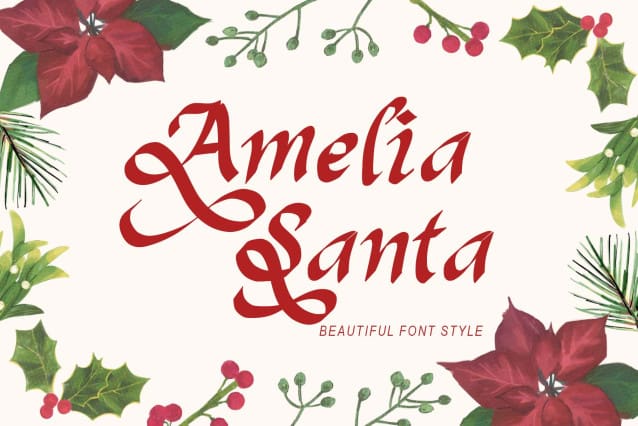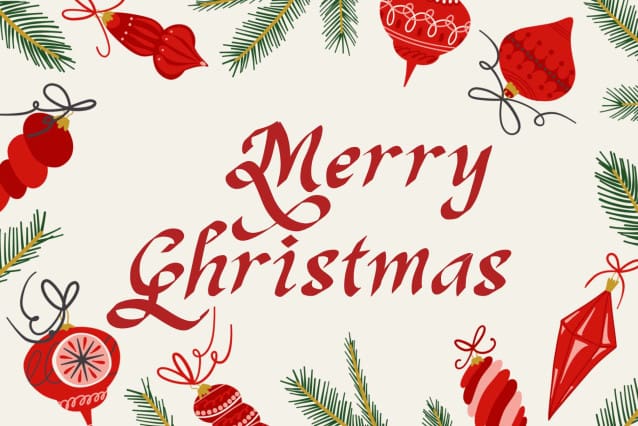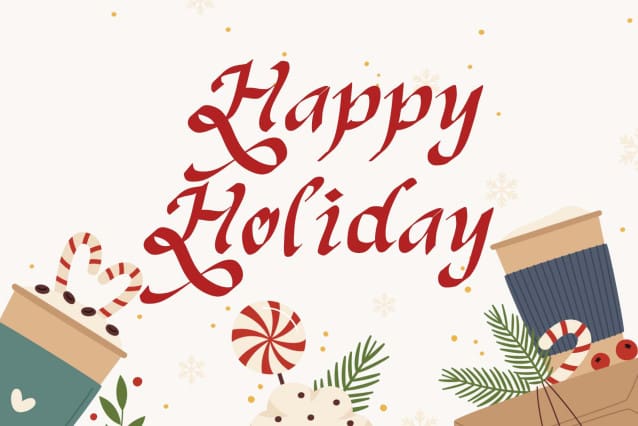
Amelia santa Font
Amelia Santa Font is a beautiful and elegant handwritten font. This font is equipped with uppercase, lowercase, numerals, punctuation, and multilingual support. Very suitable for Christmas, wedding, winter, Valentine’s, engagement, SVG, KDP, Procreate, sublimation, stickers, banners, branding, logos, and others.